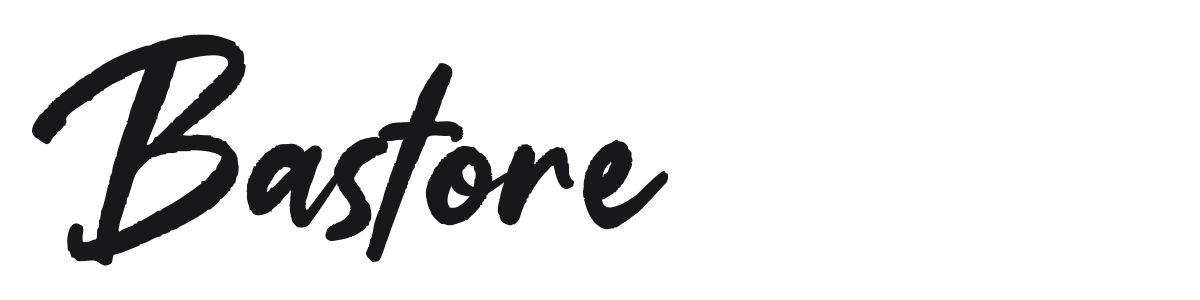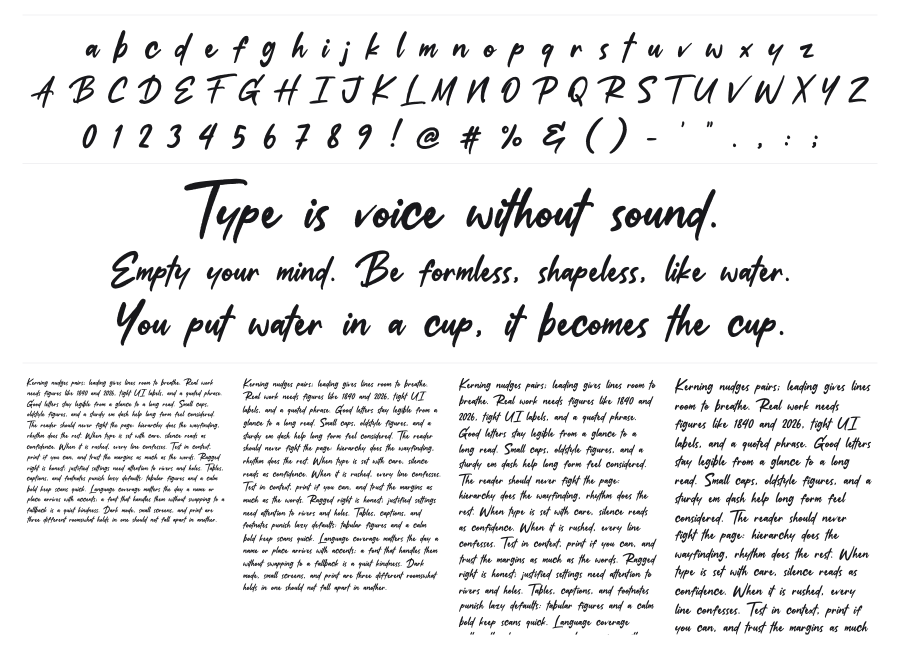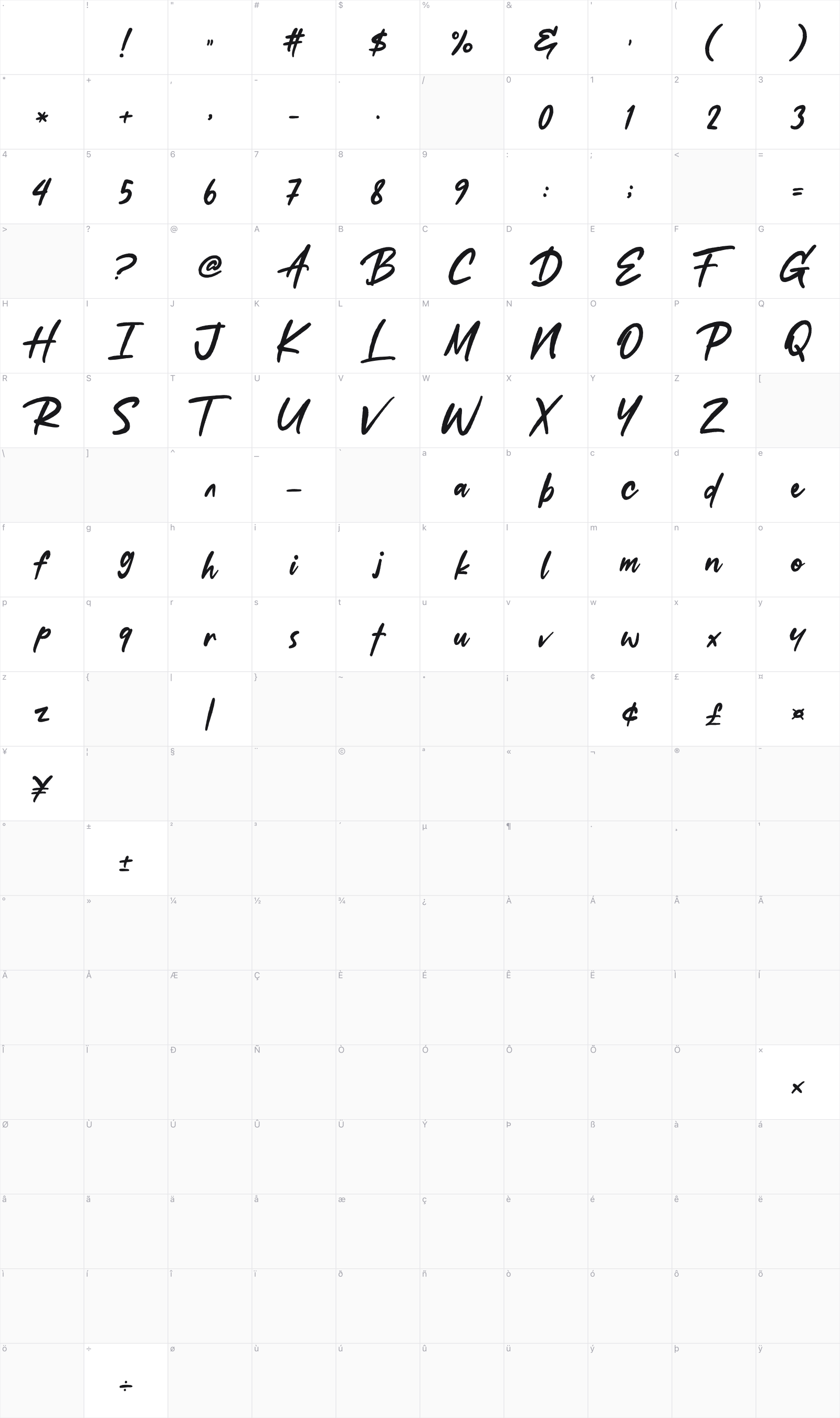
Bastore
Bastore is a bold casual brush script with the loose, energetic feel of ink on paper. The flowing connected strokes and natural variation in weight give it an authentic hand-lettered warmth that works well at large sizes. It sits comfortably in branding, packaging, and social media graphics where personality is the point.